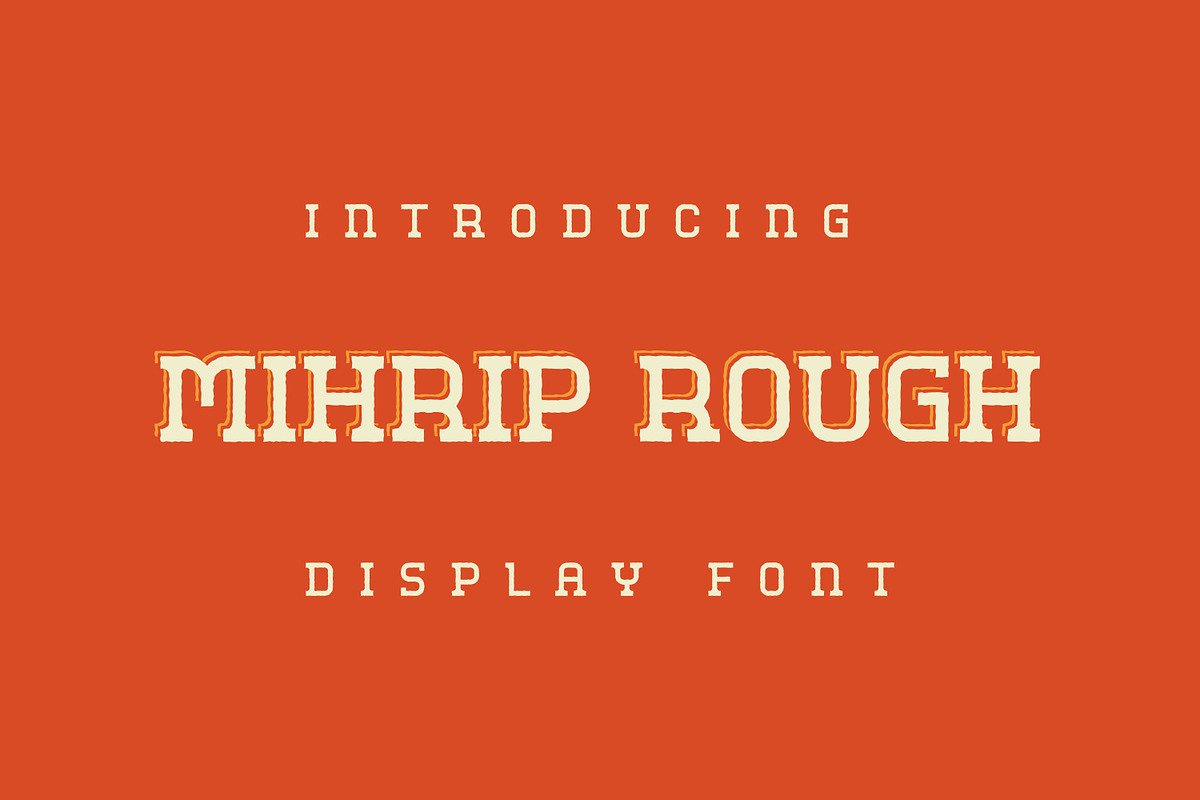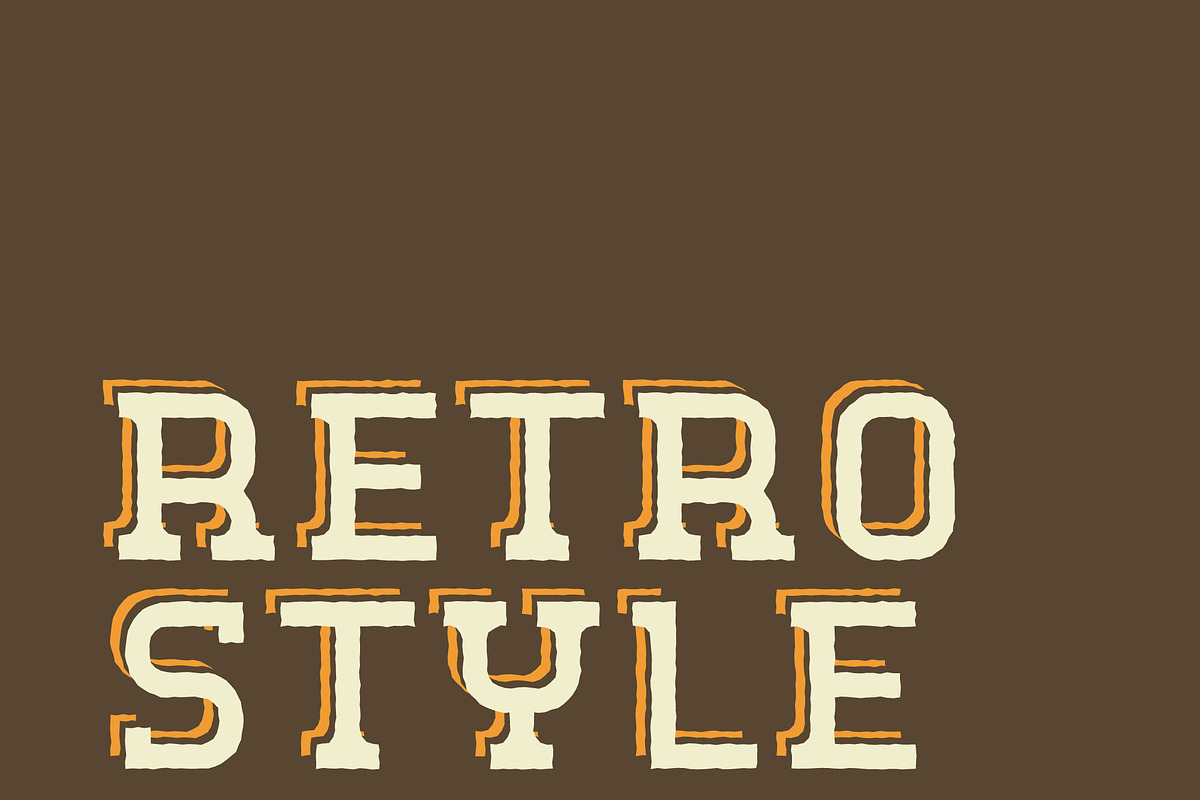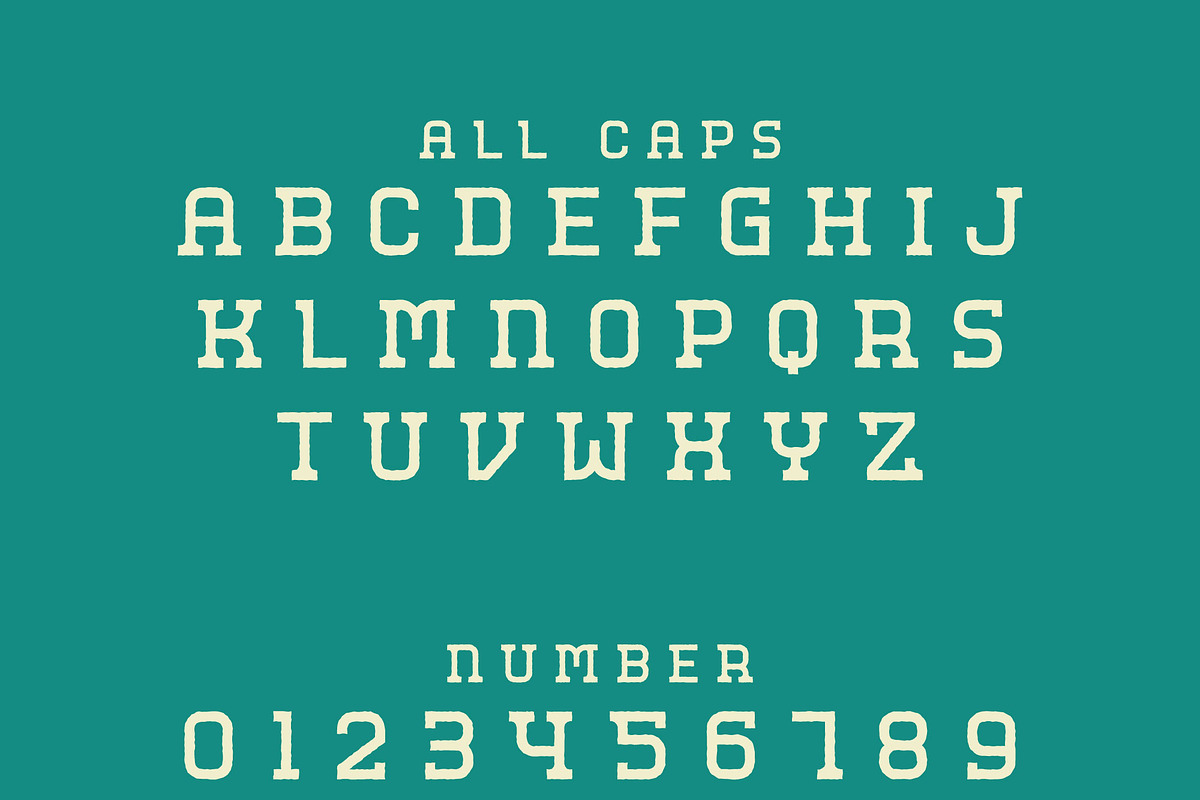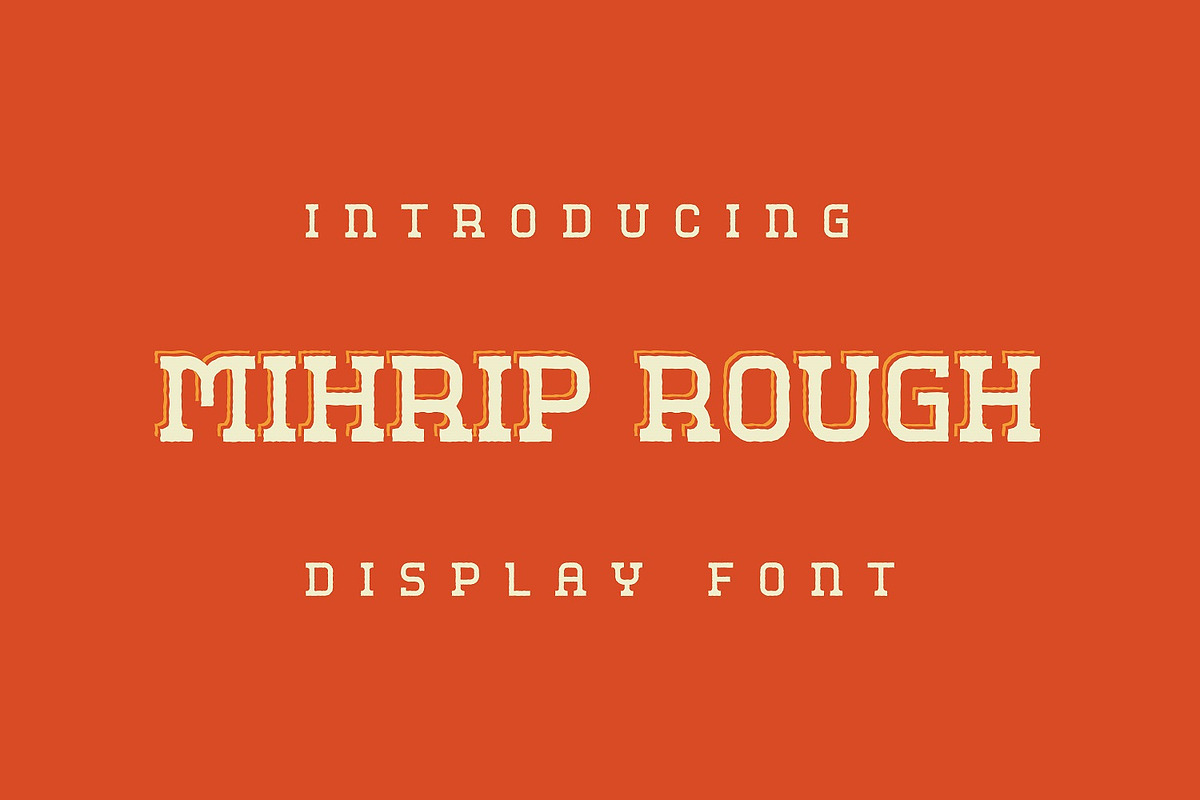
Mihrip Rough
Mihrip Rough Perfectly suited on print/screen. it’s perfect for Branding, name card, poster, logo, magazine, cover, banner, t-shirt and headers, or even large-scale artwork.